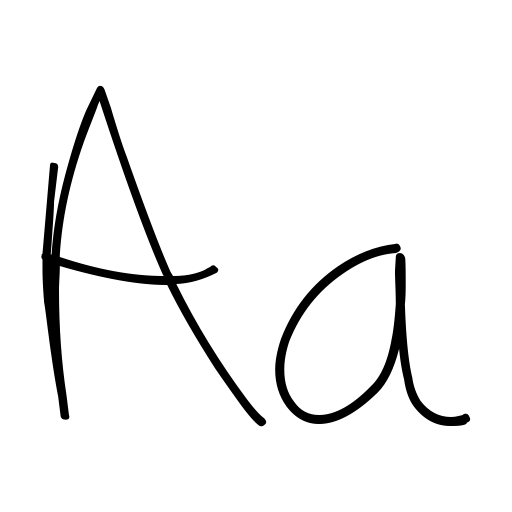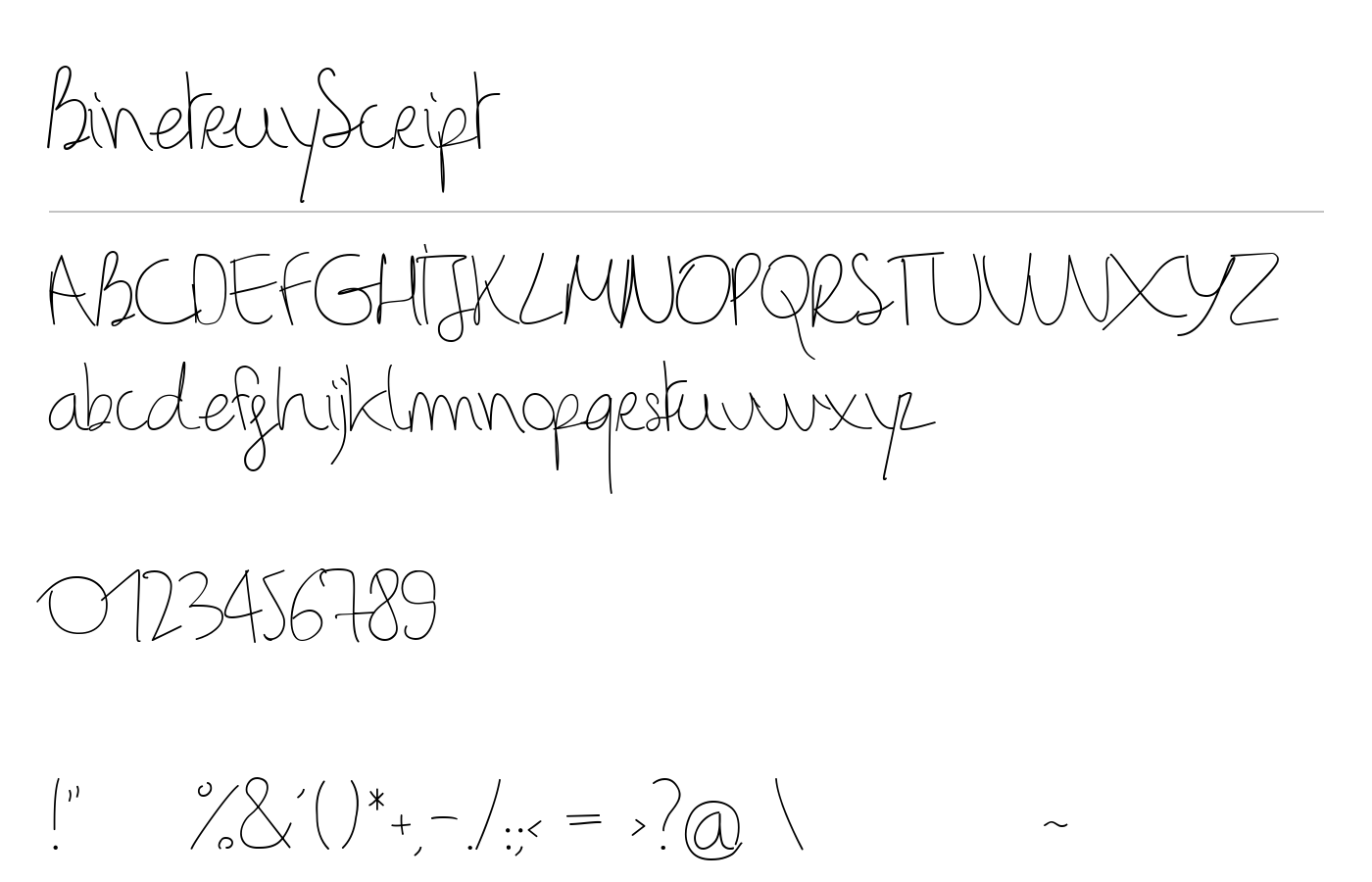
BinetruyScript is a delicate, handwritten script font with slender, elongated letterforms that feel casual and whimsical. Its thin strokes and airy spacing give it an organic, personal touch, making it ideal for creative projects, informal branding, or playful editorial designs where a light, humanistic vibe is desired. This font works best in headlines, invitations, and creative logos that benefit from an expressive, approachable style.
BinetruyScript Font